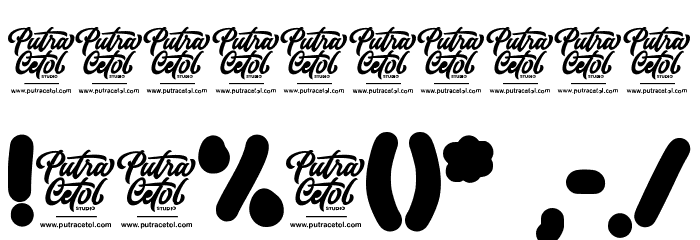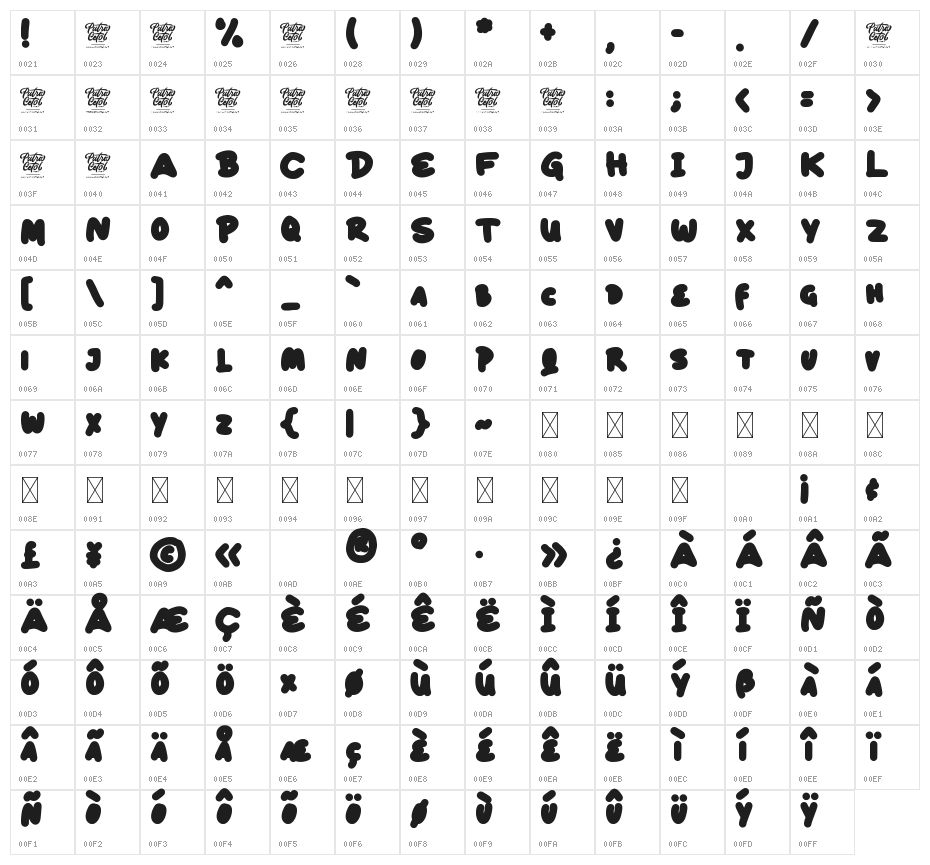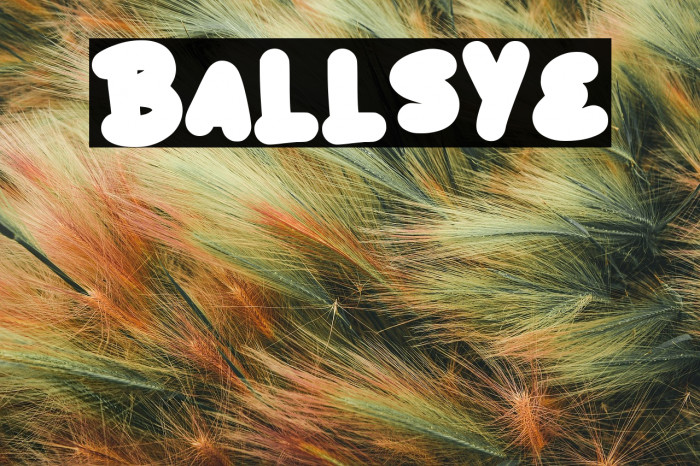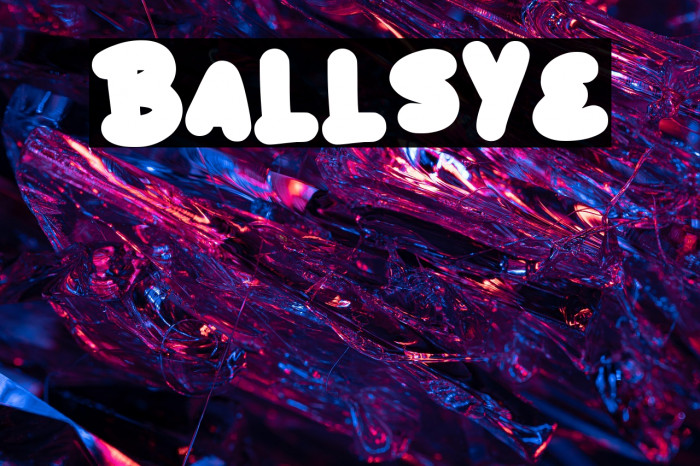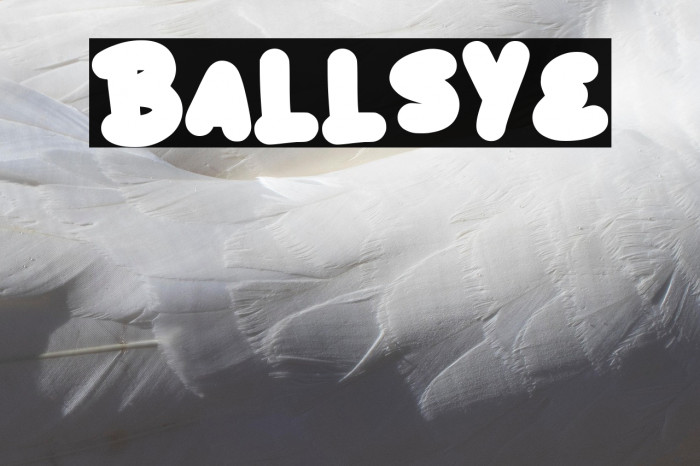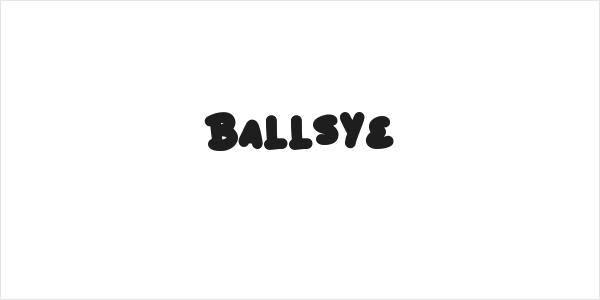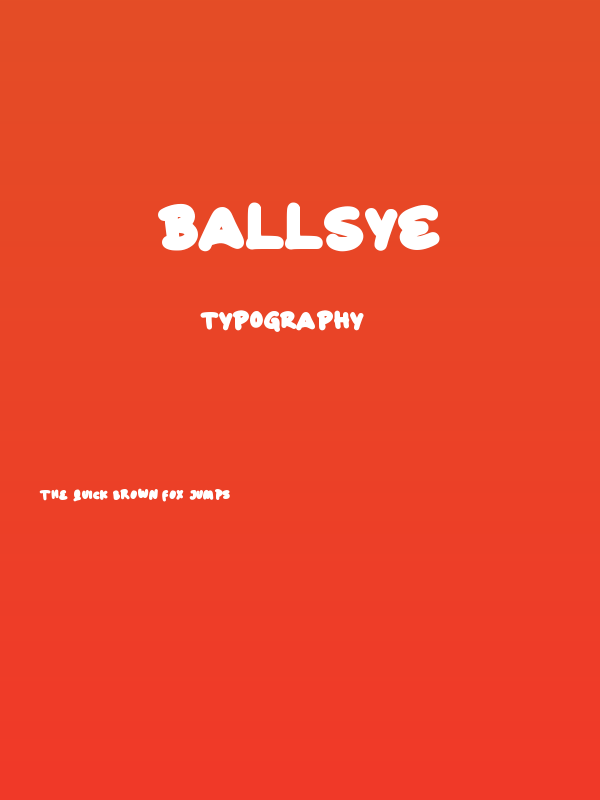
Ballsye Font
Ballsye Description
This font features a bold and playful design with thick, rounded strokes that give it a bubbly and energetic appearance. The characters are uniformly wide, creating a sense of balance and consistency across the alphabet. The uppercase and lowercase letters maintain a cohesive style, with a slightly exaggerated width that enhances the font's playful nature. The numbers and special characters are designed to match the overall aesthetic, ensuring a harmonious look throughout. This font is ideal for projects that require a fun and engaging visual impact.
| Overall Style | Playful, Energetic |
| Use Case | Logos, Posters, Headlines |
| Proposed Projects | Perfect for children's books, playful branding, party invitations, and creative posters. |